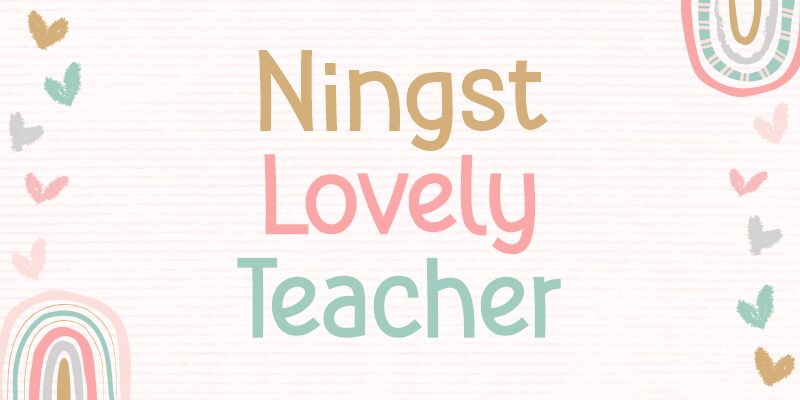
Ningst Lovely Teacher is a light, narrow display font designed by Nista Ningsih Nazara and Situjuh Nazara. Perfect for comic book covers, children's books and posters, this font adds fun and warmth to your creative projects.